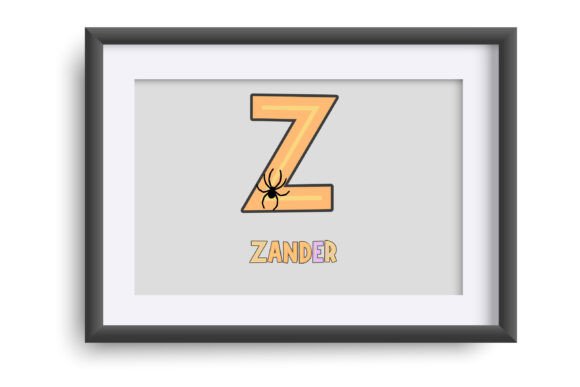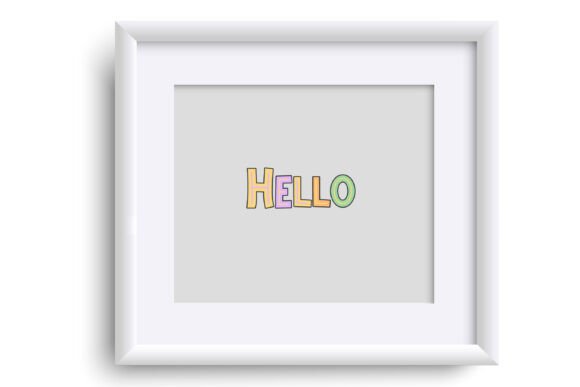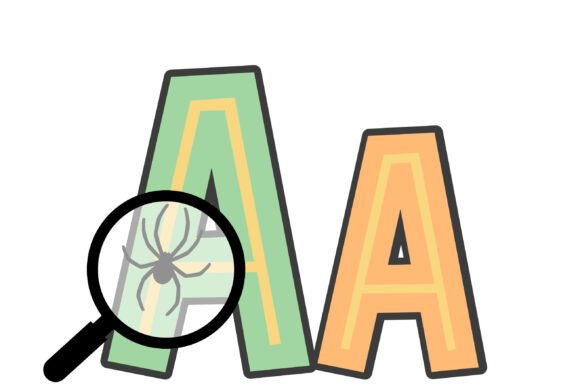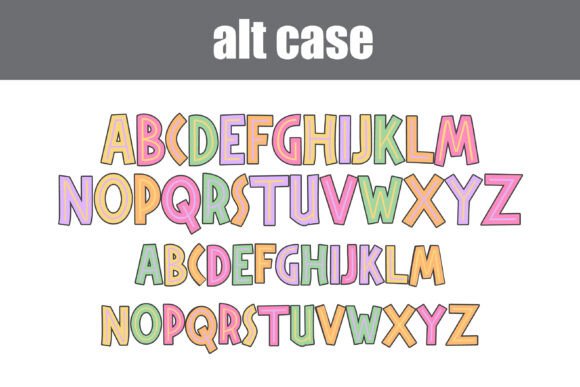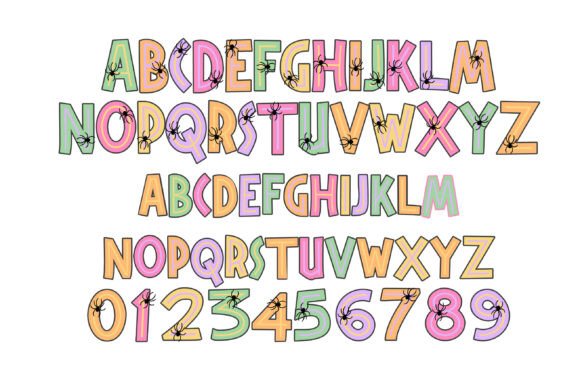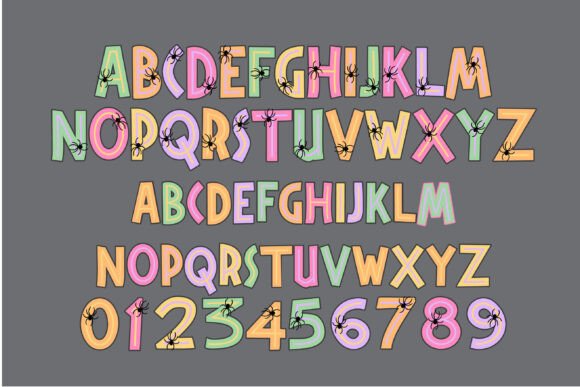
Arachno Age Font: A Prehistoric Halloween Treat for Designers and Crafters
Are you ready to add a touch of prehistoric flair to your designs and crafts? Look no further than the Arachno Age Font, a full-color font that combines a prehistoric theme with a spooky Halloween color palette. This versatile font is perfect for titles, displays, posters, and more, and is compatible with a range of design software, including Silhouette Studio.
What is Arachno Age Font?
The Arachno Age Font is a unique and eye-catching font that features a prehistoric design with a Halloween twist. The font is presented in a full-color format, with a range of vibrant colors that will add a pop of excitement to any design. The font includes an alternative version that can be accessed through your system’s character map, which contains additional colors for all the letters.
Key Features of Arachno Age Font
• Full-color font: The Arachno Age Font is a full-color font, featuring a range of vibrant colors that will add depth and interest to any design.
• Prehistoric design: The font features a prehistoric design, perfect for creating spooky and fun designs for Halloween or any other occasion.
• Halloween color palette: The font’s color palette is inspired by Halloween, with a range of spooky and vibrant colors.
• Alt version with additional colors: The font includes an alternative version with additional colors for all the letters, accessible through your system’s character map.
Here are some tips and tricks for using the Arachno Age Font:
• Use the font for titles and displays: The font is perfect for titles and displays, and can add a touch of excitement to any design.
• Experiment with different colors: The font’s color palette is versatile and can be used in a range of different designs.
• Combine with other fonts: The font can be combined with other fonts to create a unique and eye-catching design.
The Arachno Age Font is a unique and versatile font that is perfect for designers and crafters who want to add a touch of prehistoric flair to their designs. With its full-color design, Halloween color palette, and compatibility with a range of design software, this font is a must-have for anyone looking to create spooky and fun designs.